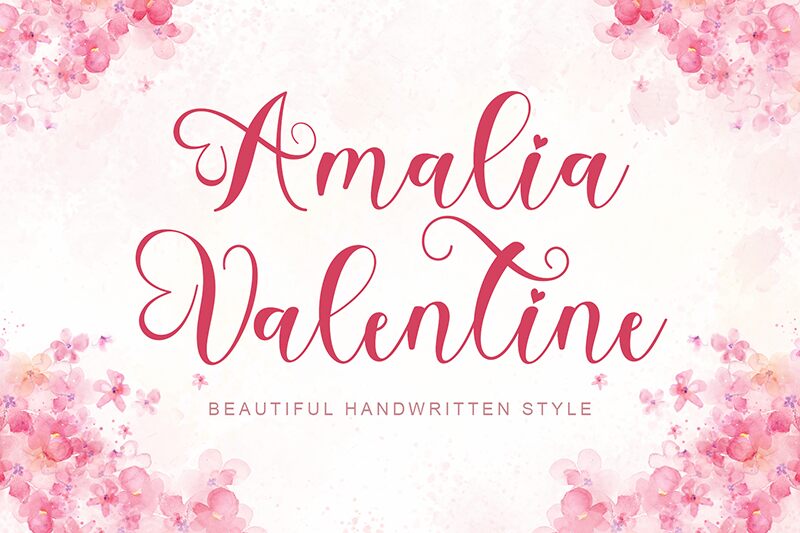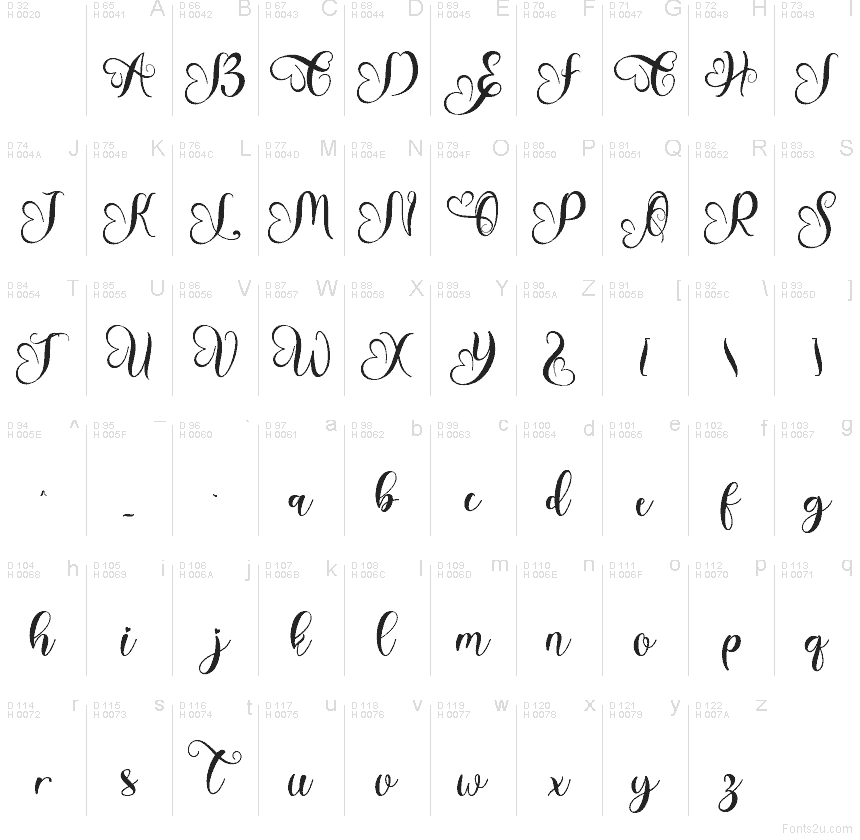
Amalia Valentine font by Yoga Letter is a free romantic calligraphy typeface with a handwritten, love-note feel. The letters sweep and curl with graceful loops, like wet ink pulled across thick paper, yet the rhythm stays readable and even. Soft curves, slender strokes, and airy spacing give every word a fluttery, heartfelt presence without feeling cluttered or fussy.
Using Amalia Valentine, your text instantly feels like a personal dedication, making this free font a natural fit for Valentine cards, wedding invitations, save-the-dates, bridal shower stationery, Instagram quotes, and gift tags. It also shines on product packaging for candles, chocolates, or florals. For balance, pair Amalia Valentine with a clean sans serif in smaller sizes, letting the script handle names, headings, and short romantic phrases.